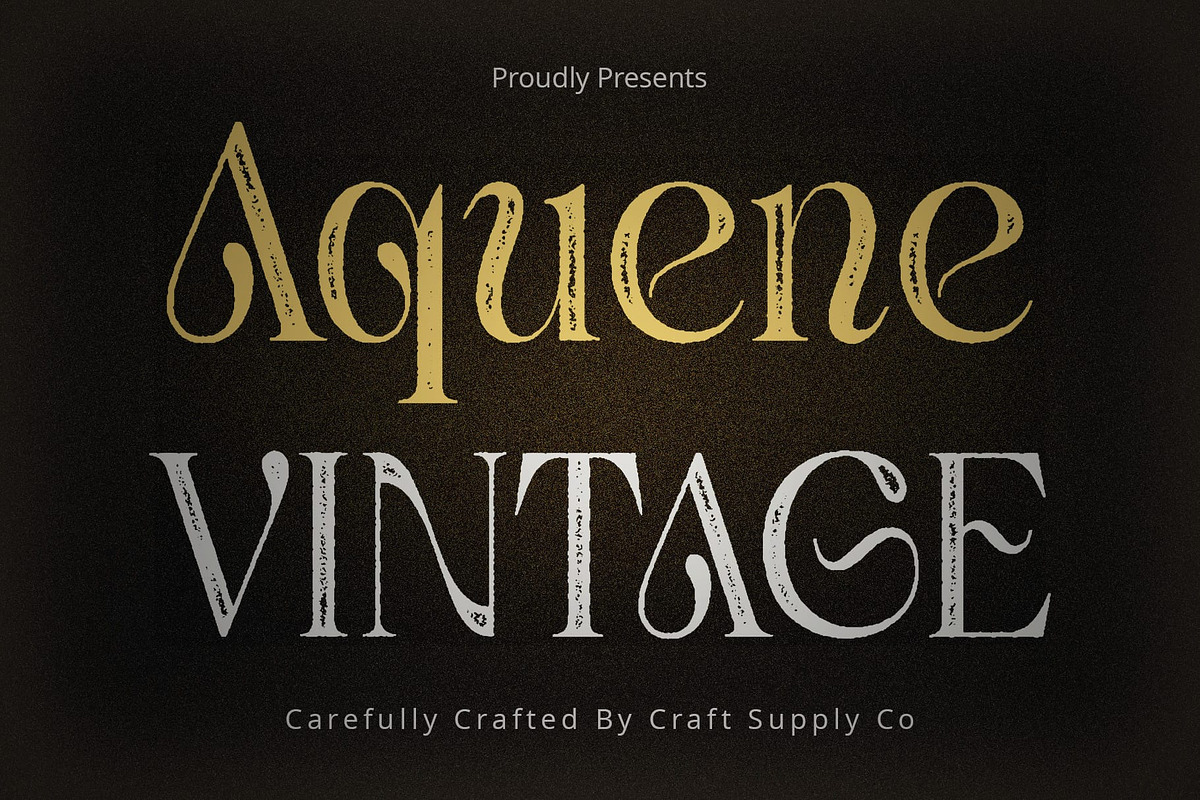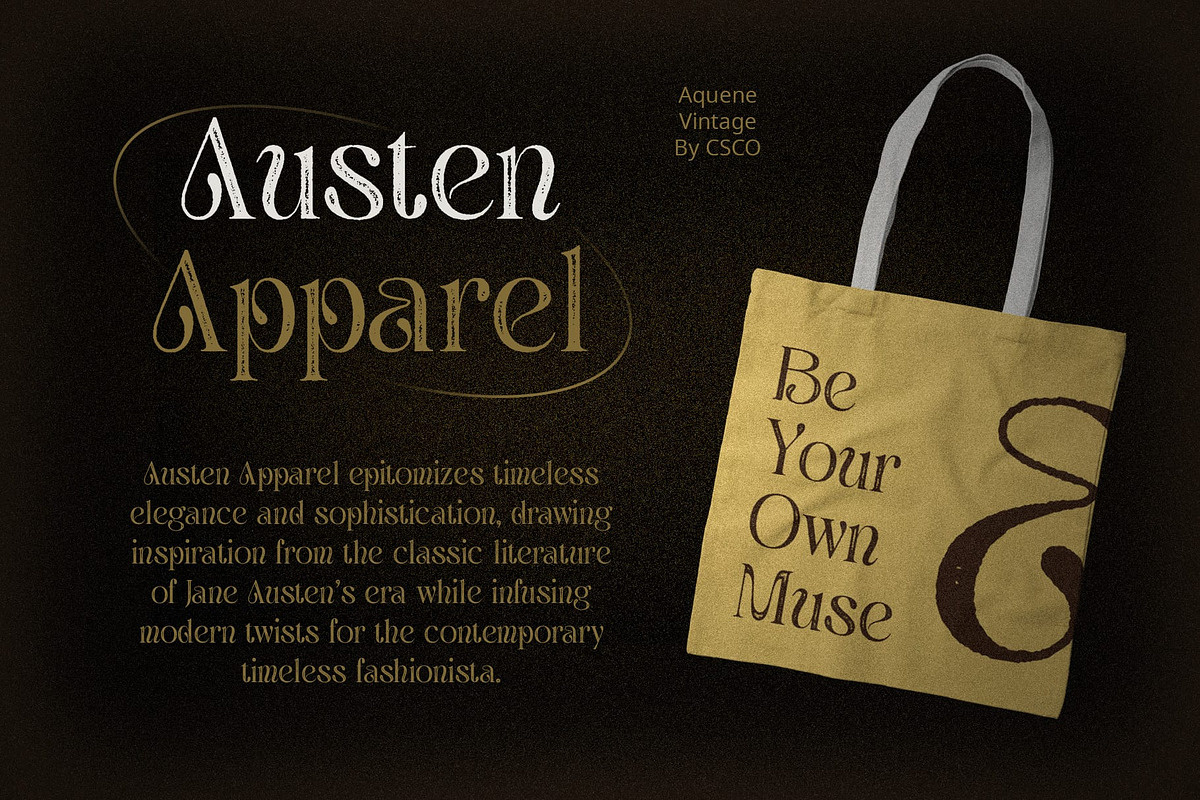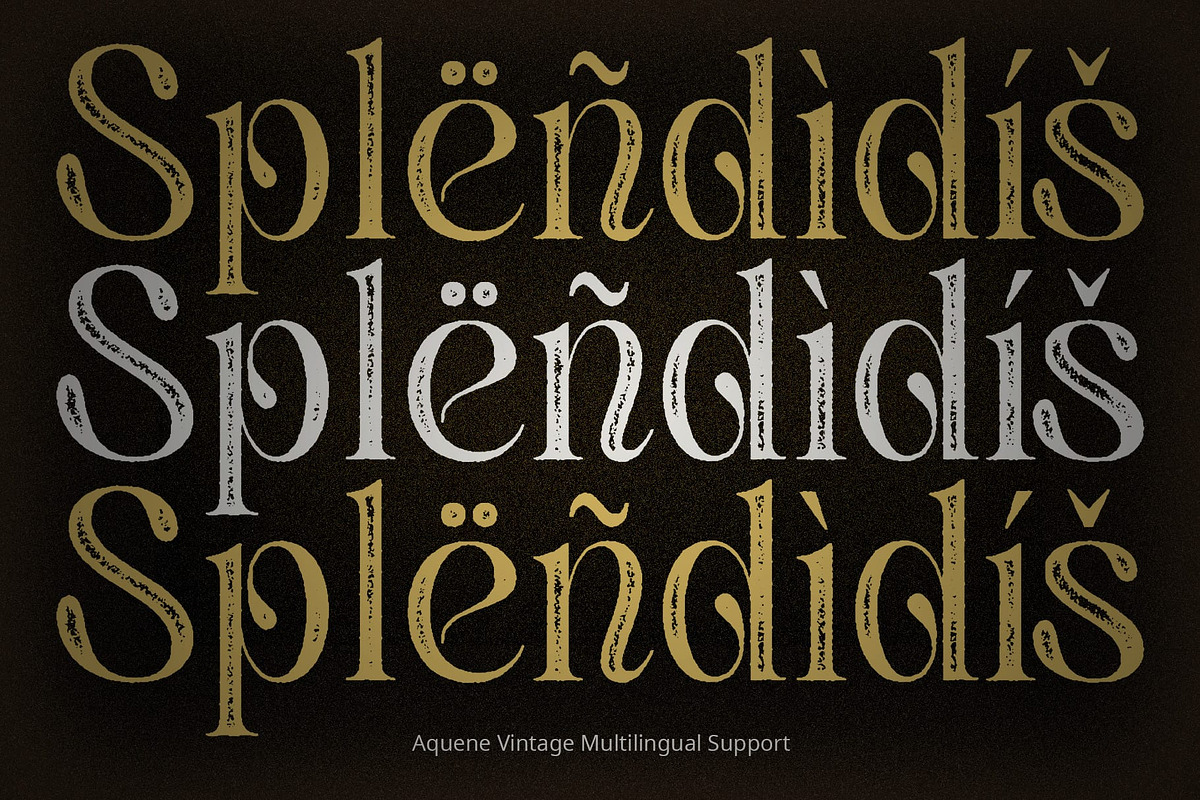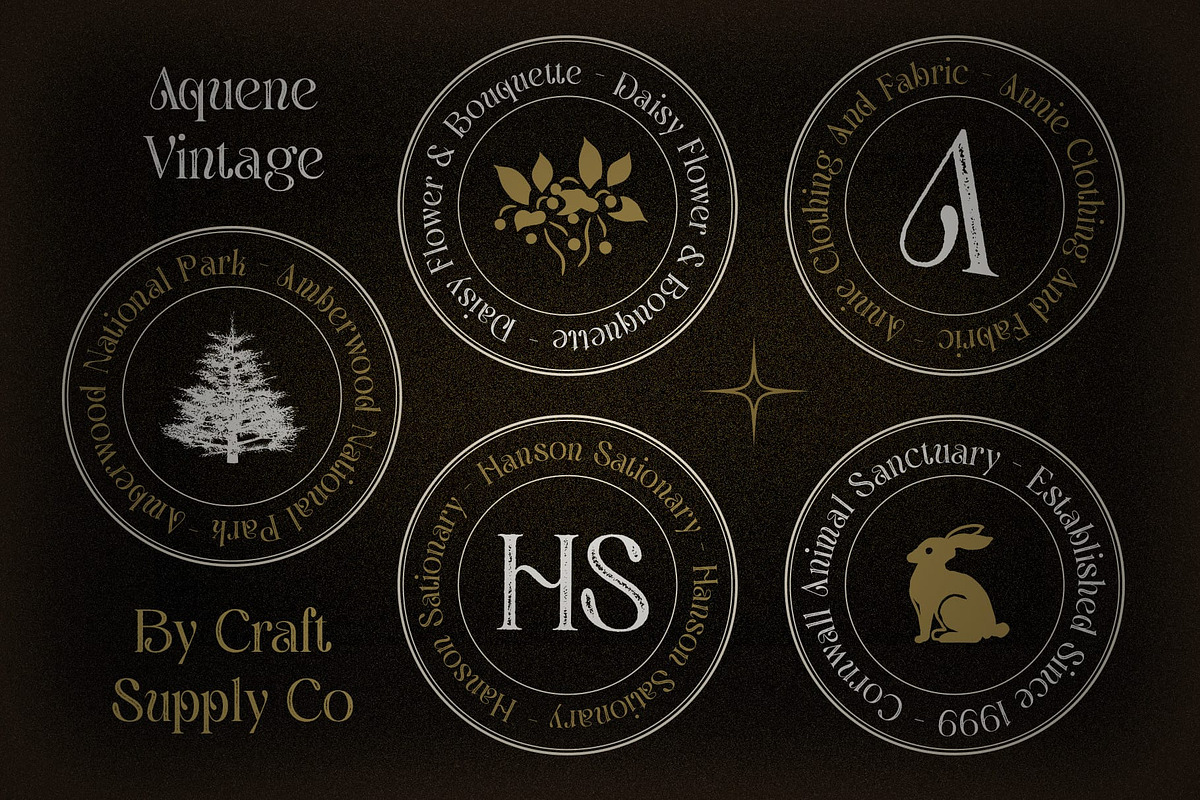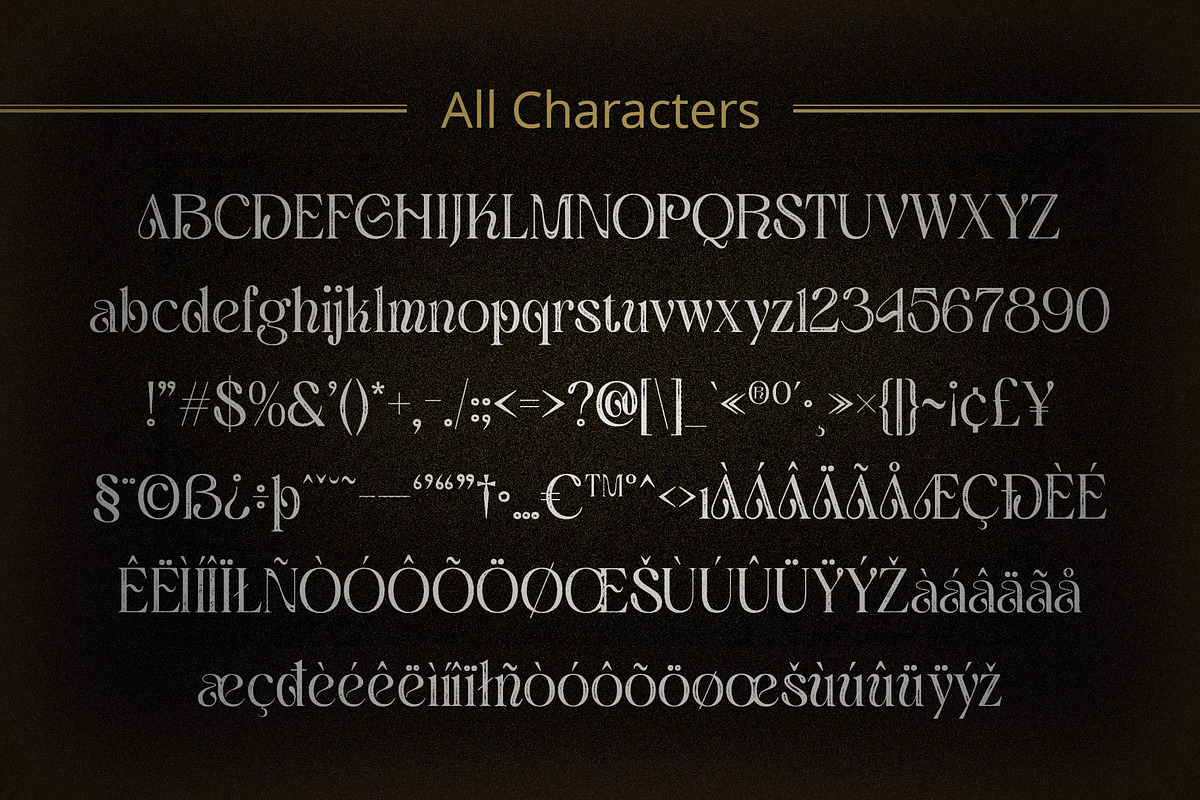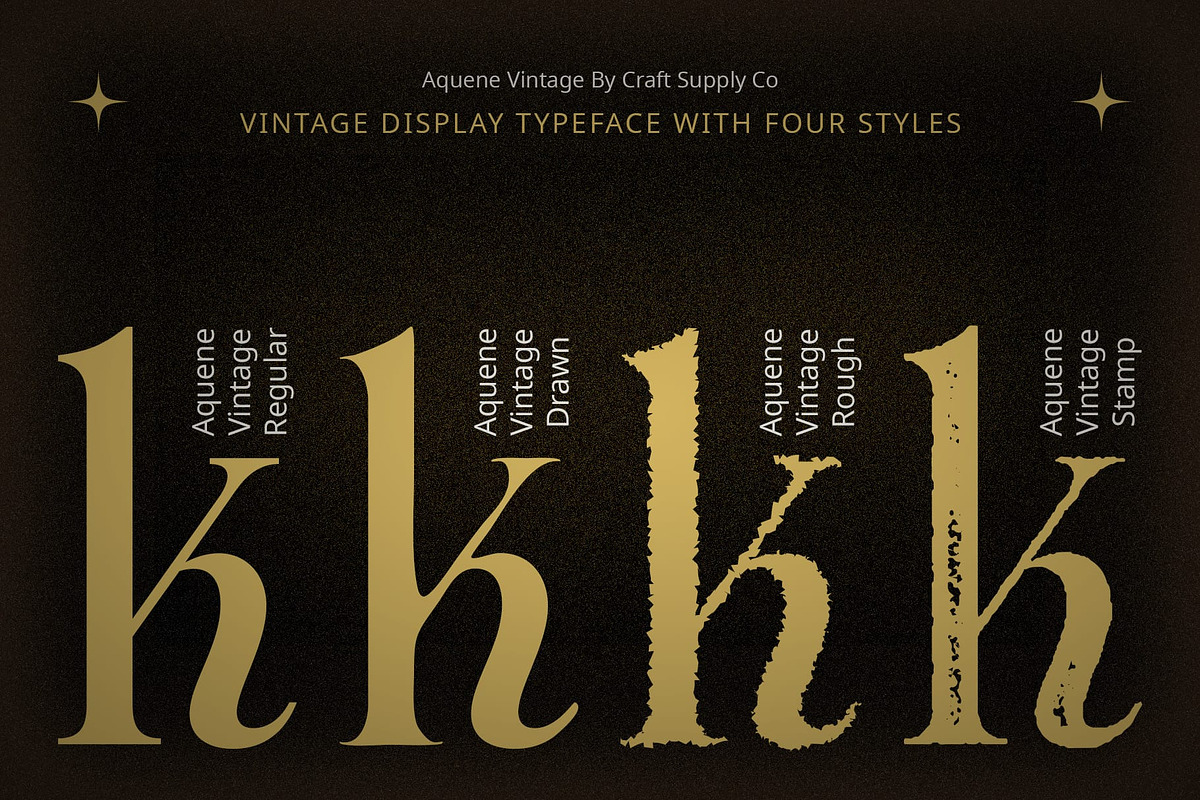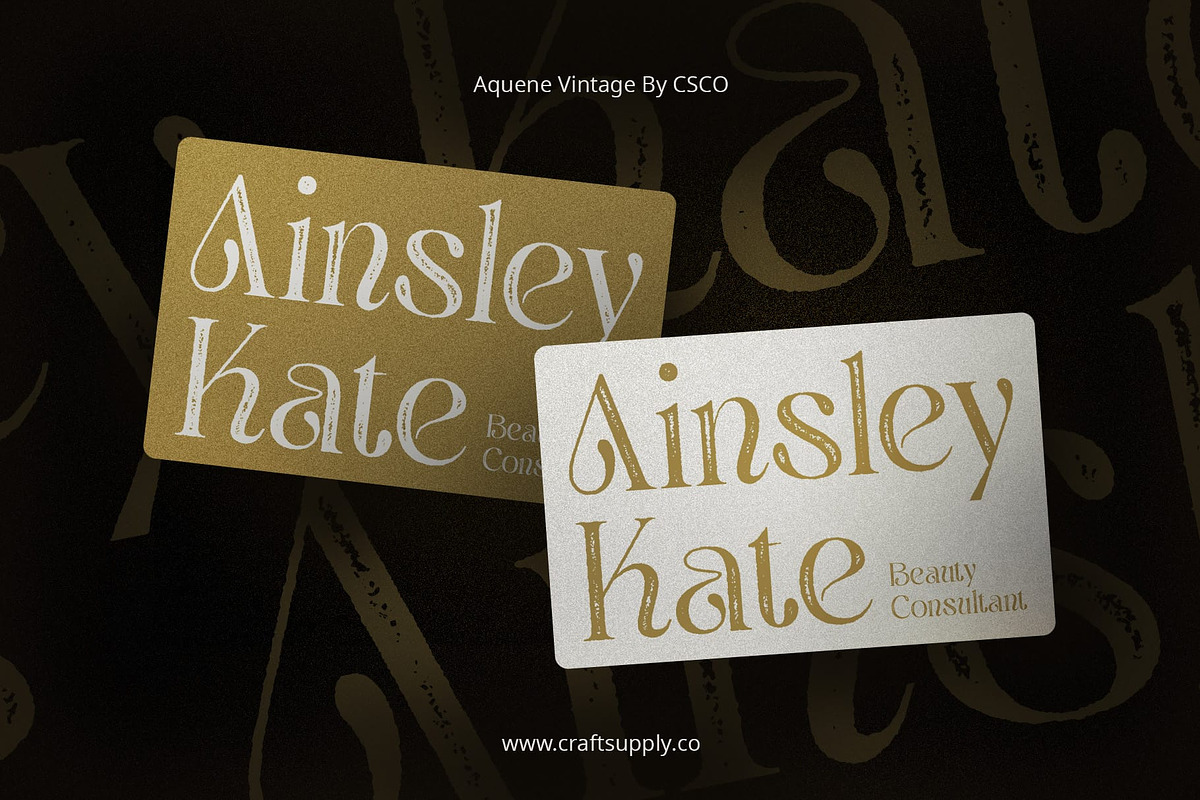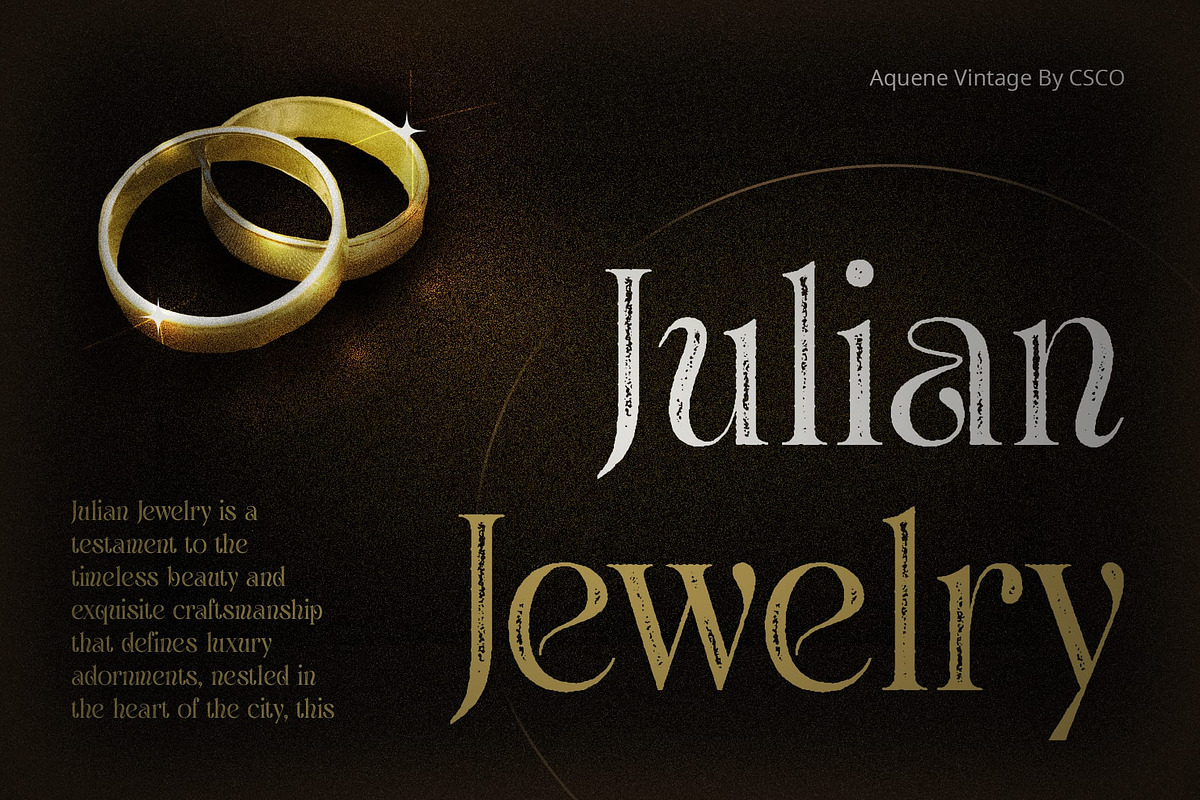
Aquene Vintage
Aquene Vintage: Timeless Elegance with a Vintage Twist
Distinct Serif Display Design Aquene Vintage boasts a distinct serif display design with flowing elements that add a touch of sophistication. Its graceful curves and sharp edges create a captivating visual appeal.
Vintage Stamp, Drawn, and Rough Effects This font features vintage stamp, drawn, and rough effects that imbue it with a rustic charm. Each character carries a sense of history and authenticity, reminiscent of bygone eras.
Perfect for Display With its serif display design and vintage effects, This font is perfectly suited for display purposes. It commands attention and adds a nostalgic flair to headlines, banners, and logos.
Versatile Application Despite its vintage-inspired aesthetic, This font is versatile in its application. From branding and signage to editorial design and packaging, it lends a touch of timeless elegance to any project.
Classic Sophistication with a Retro Feel This font combines classic serif display elements with vintage effects to create a font that exudes timeless sophistication. Whether used for bold headlines or subtle accents, it adds a touch of nostalgia and charm to any design endeavor.
- Aquene Regular
- Aquene Drawn
- Aquene Rough
- Aquene Stamp